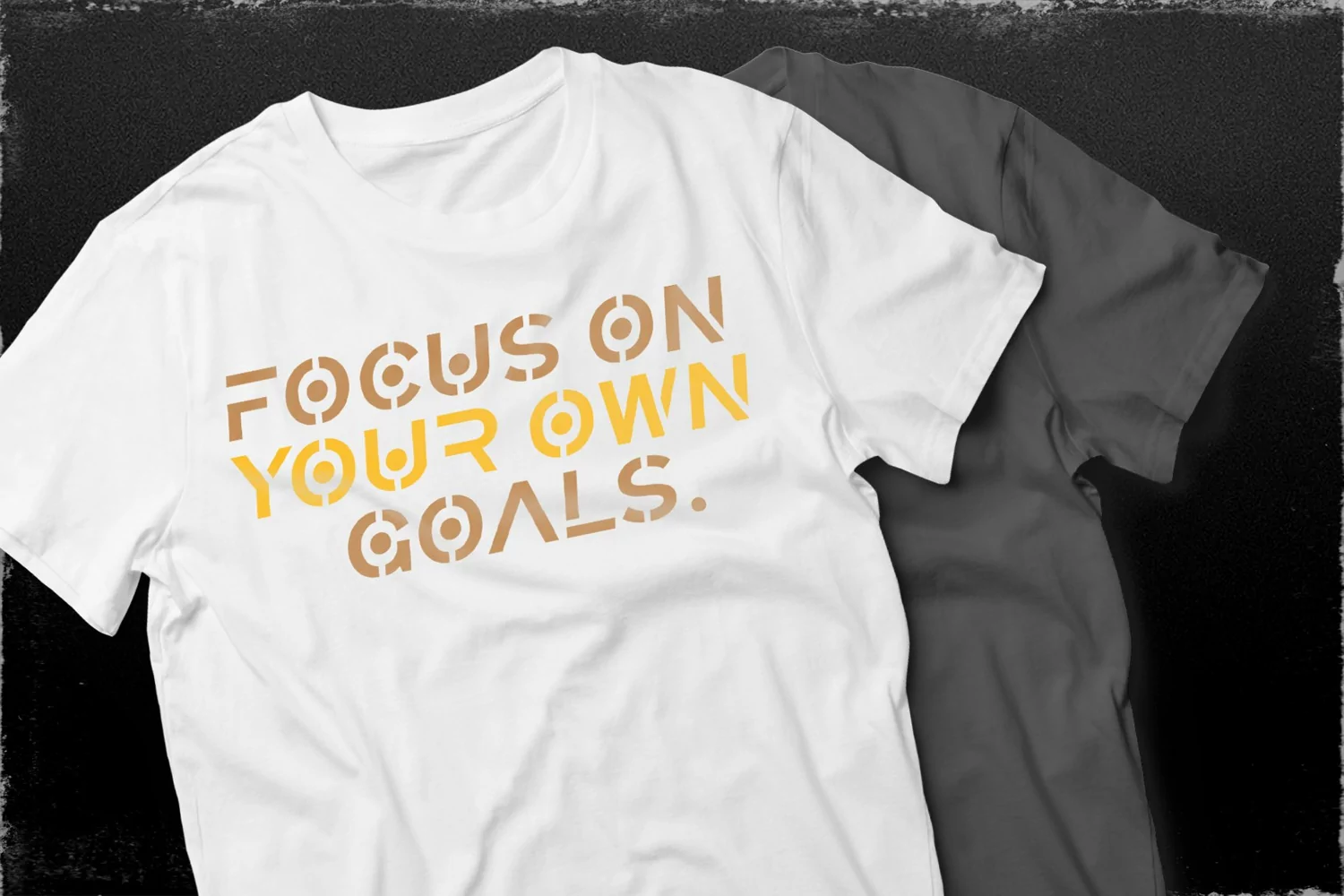
Target is a classic sans serif typeface. Perfect for display, poster, quotes, film, craft needs, book cover, business card, packaging, merchandise, branding, logo, logotype, header, title, and many more.